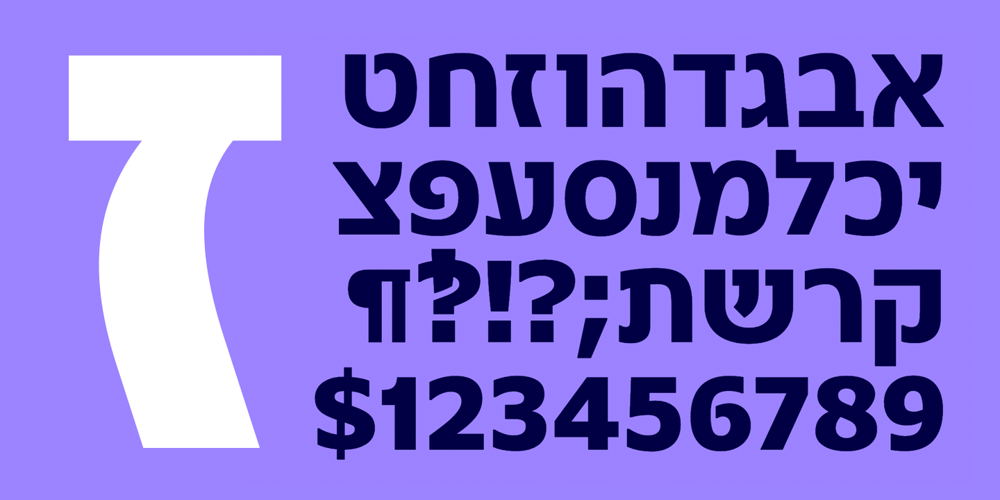
Teom Font Family was designed by Avraham Cornfeld and published by Fontimonim. Teom contains 4 styles and family package options. A Hebrew sans font inspired by the Latin letters of font Tahoma. Teom serves as a more polished and harmonious substitute for Tahoma’s default Hebrew, and also as an independent and elegant Hebrew font for titles and short texts.